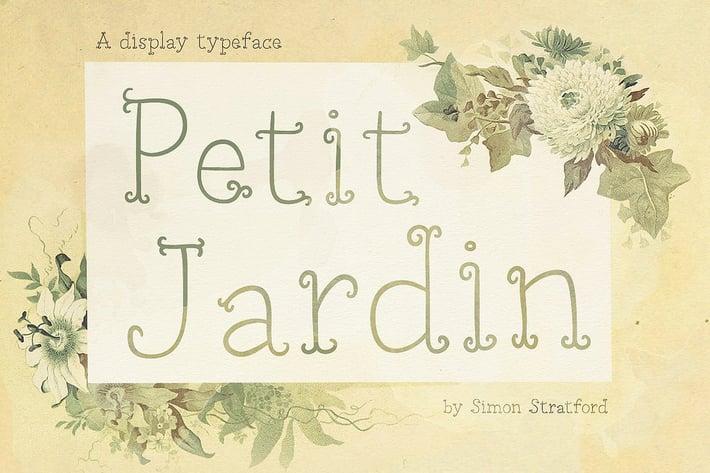
Petit Jardin font
Petit jardin — French for small garden, clever huh?
Okay not so clever, to be honest, I've always loved those words, Petit Jardin. So the name, it stuck.
It's a decorative little number, delicate and thin with organic curly serifs. I guess you could call it a display font. With its dainty look, it needs to be used at larger point sizes and headlines.
What can you use it for?
With those curly serifs, it has a playful look and feel—with a smidgen of art nouveau about it.
It would be ideal for invites, greeting cards, stationary, packaging, branding and anything where you want that fun, quirky organic look.